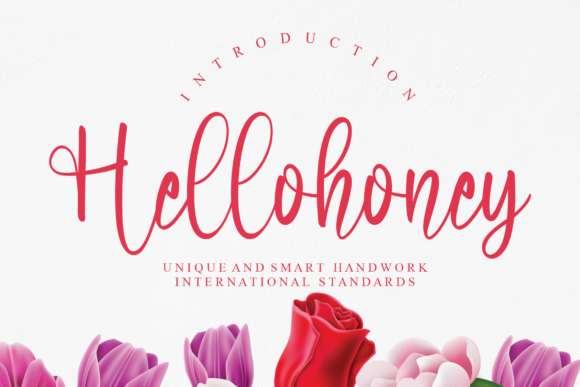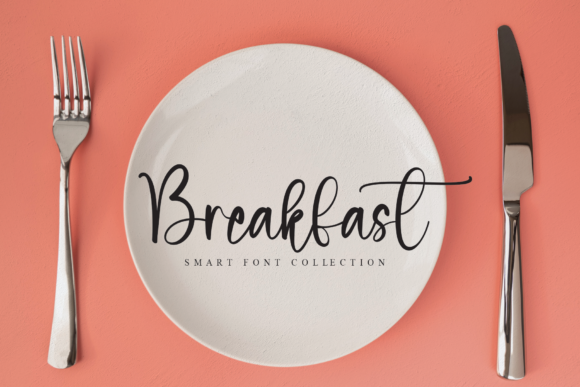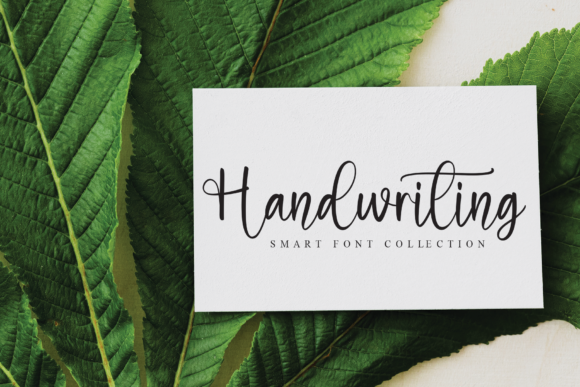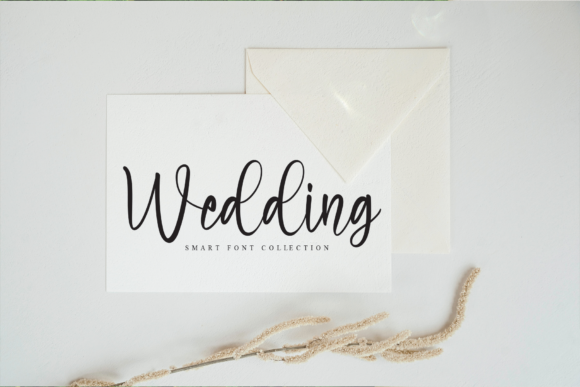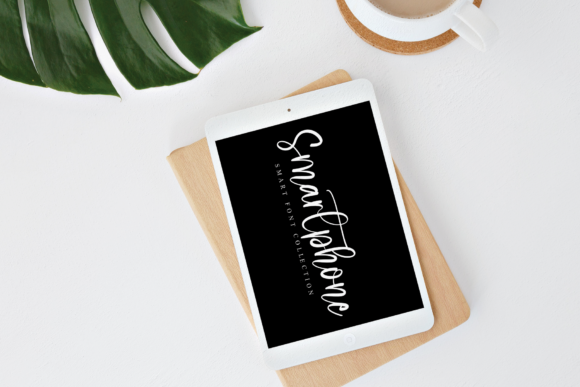
When it’s time to turn those ideas into reality, the right font can make all the difference. That’s where the Hellohoney Font comes in – a thin and flowing handwritten font that adds an adventurous and authentic feel to your next design idea. Whether you’re a seasoned designer or just starting out, this versatile font is the perfect tool to bring your vision to life.
With Hellohoney Font, you’ll be able to infuse your designs with a personal touch that’s hard to replicate with more traditional fonts. Its unique style makes it an invaluable asset for designers looking to add a little extra flair to their work.
- Font Family: Hellohoney is a modern script font designed to add a touch of elegance to any design.
- Character Set: Includes a wide range of characters, including uppercase and lowercase letters, numbers, and punctuation marks.
- Unique Characteristics: Features a unique blend of swashes and flourishes, making it perfect for creating eye-catching headings and titles.
Hellohoney Font Review
As a designer, I recently had the chance to work with the Hellohoney Font, and I must say, it was a mixed bag. Let’s dive into the good and the not-so-good.
- Unique aesthetic: The Hellohoney Font has a distinctive, whimsical feel that’s perfect for projects that need a touch of personality.
- Playful flourishes: The font’s decorative elements add a layer of depth and visual interest to text.
- Good legibility: Despite its ornate nature, the font is still easy to read, even at smaller sizes.
- Limited font weights: The Hellohoney Font is available in only a few weights, which can limit its versatility.
- Not ideal for body text: While the font is great for headlines and titles, it may not be the best choice for larger blocks of text.
- Not webfont-friendly: The font’s intricate details may not render well in smaller resolutions or on low-resolution screens.
Overall impression
While the Hellohoney Font has its charms, it’s not a one-size-fits-all solution. It’s perfect for projects that require a touch of whimsy and personality, but may not be the best choice for more serious or straightforward designs. With a bit more flexibility and webfont-friendliness, this font could be a real winner.
The Hellohoney font is a beautiful, elegant script font perfect for:
- Quotes and typography-based art
For optimal results, pair the Hellohoney font with a clean, simple background and minimalistic design elements.
Alternatives to Hellohoney Font for Designers
Pacifico is a beautiful, elegant script font that is perfect for creating a sophisticated and luxurious feel. It’s ideal for wedding invitations, greeting cards, and other special occasion designs. Pacifico has a similar cursive feel to Hellohoney Font but has a more refined and polished appearance.
Carolyna Pro is a modern, elegant script font that is great for creating a high-end and luxurious feel. It’s perfect for branding, packaging, and advertising designs where you want to convey a sense of sophistication and elegance. Carolyna Pro has a more contemporary feel than Hellohoney Font and is ideal for designs that require a touch of modernity.
Alex Brush is a handwritten font that has a unique, artistic feel. It’s perfect for creating a personal and intimate connection with your audience. Alex Brush has a more organic feel than Hellohoney Font and is ideal for designs that require a touch of whimsy and creativity.